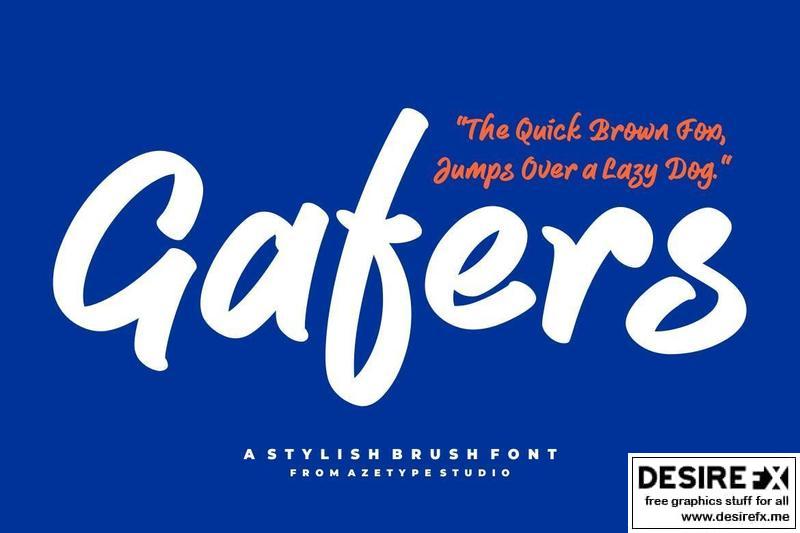
AZ Gafers 4XB2RUU
Introducing, AZ Gafers is a solid brush font suitable for your design project needs, such as; social media posts, quotes, overlays on images, tagline logos, posters, print needs, website banners, and more.
Azetype Studio